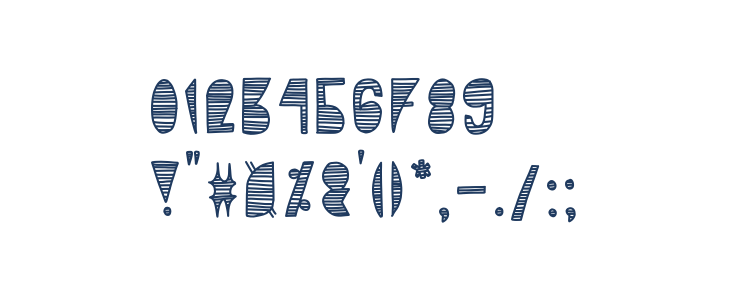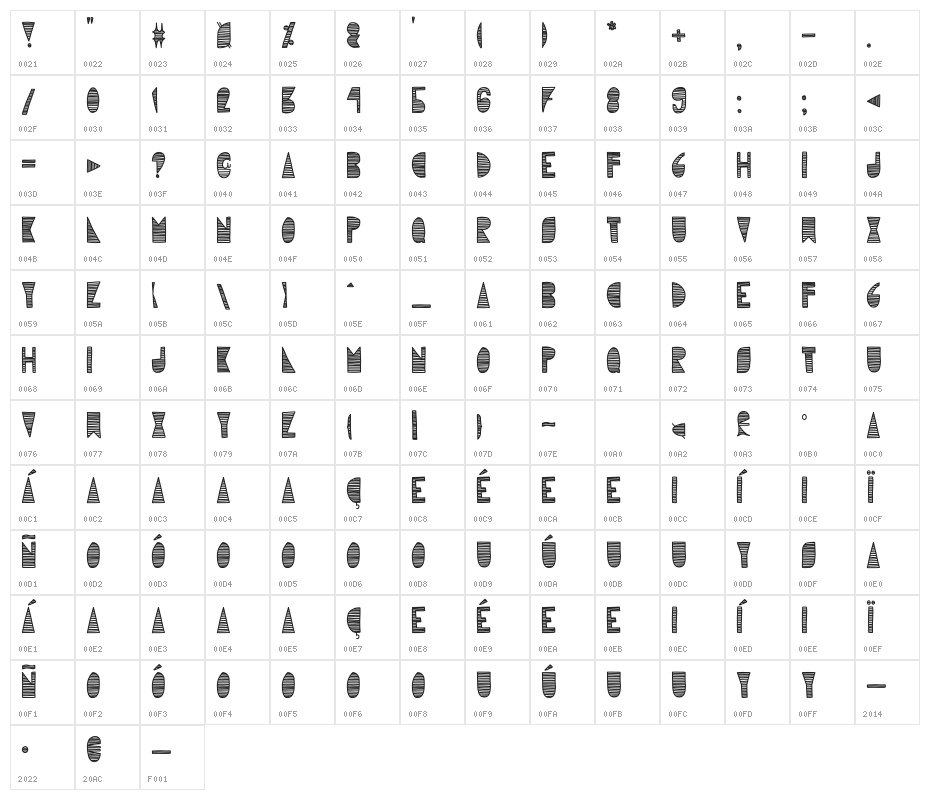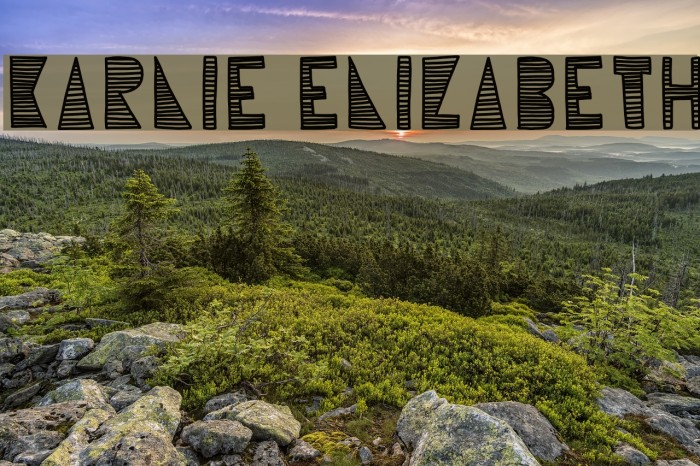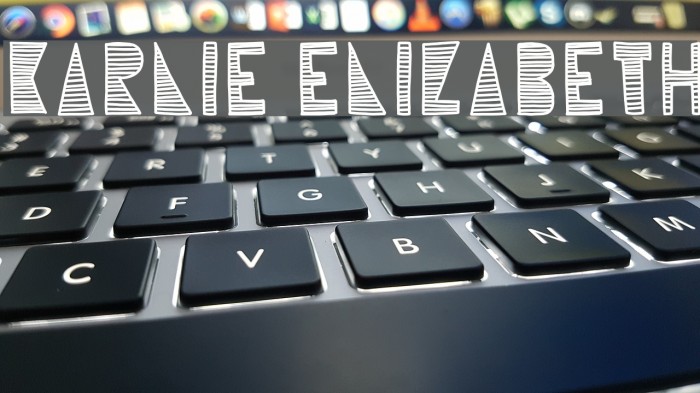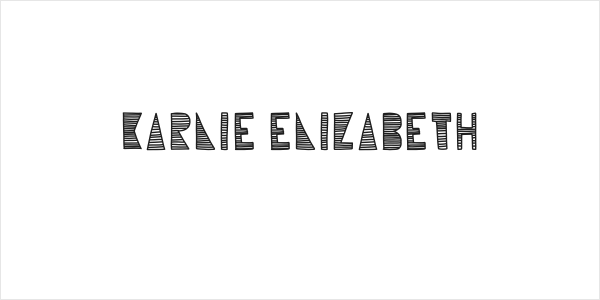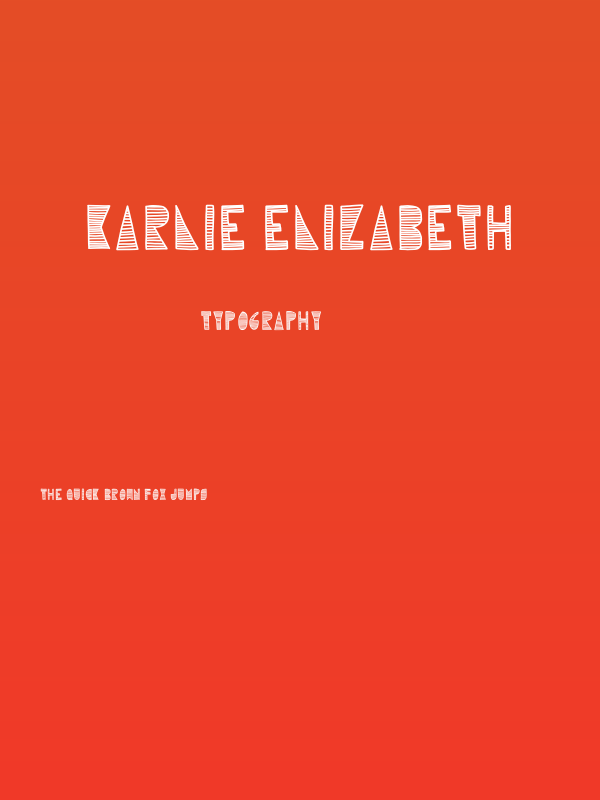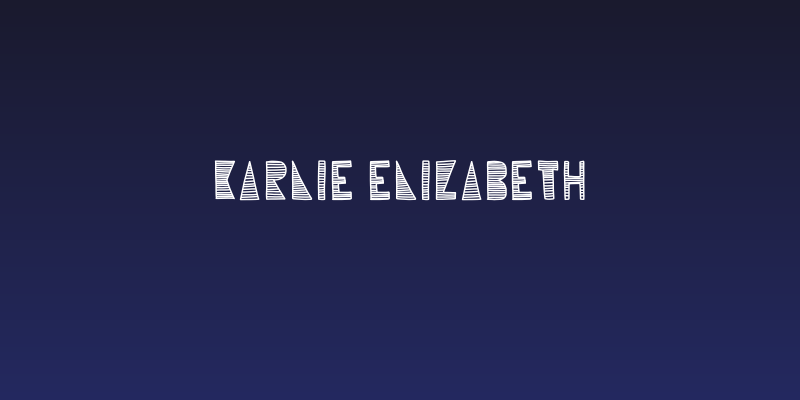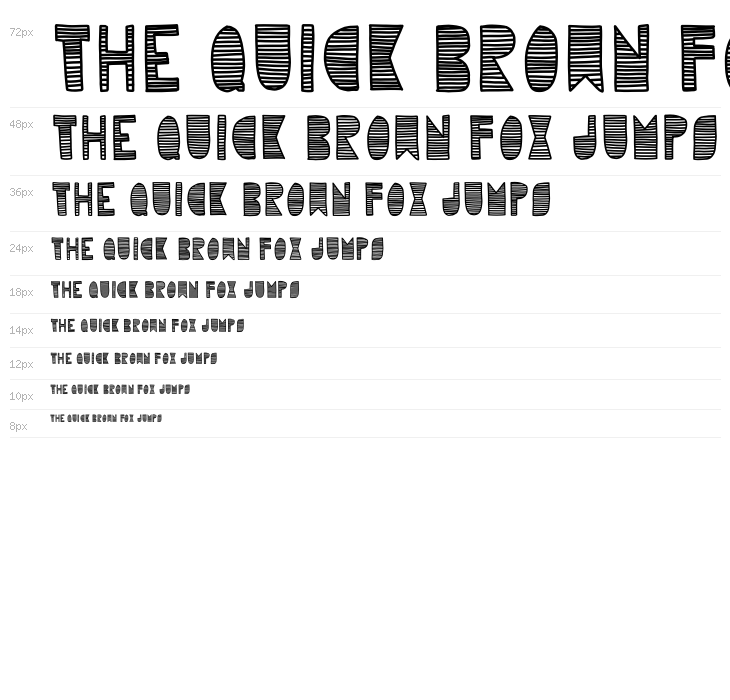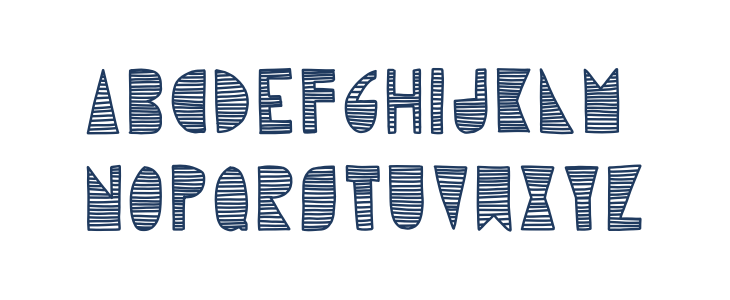
Karlie Elizabeth Font
Karlie Elizabeth Description
This font features a playful and bold design with a hand-drawn aesthetic. Each character is filled with horizontal lines, giving it a textured appearance. The uppercase letters are geometric and angular, while the lowercase letters maintain a consistent style. Numbers and special characters follow the same design principles, ensuring uniformity across the font. The overall look is whimsical and artistic, making it ideal for creative projects. Its unique style stands out, making it suitable for eye-catching designs.
| Overall Style | Whimsical |
| Proposed Projects | Ideal for children's books, playful branding, posters, and creative invitations. |